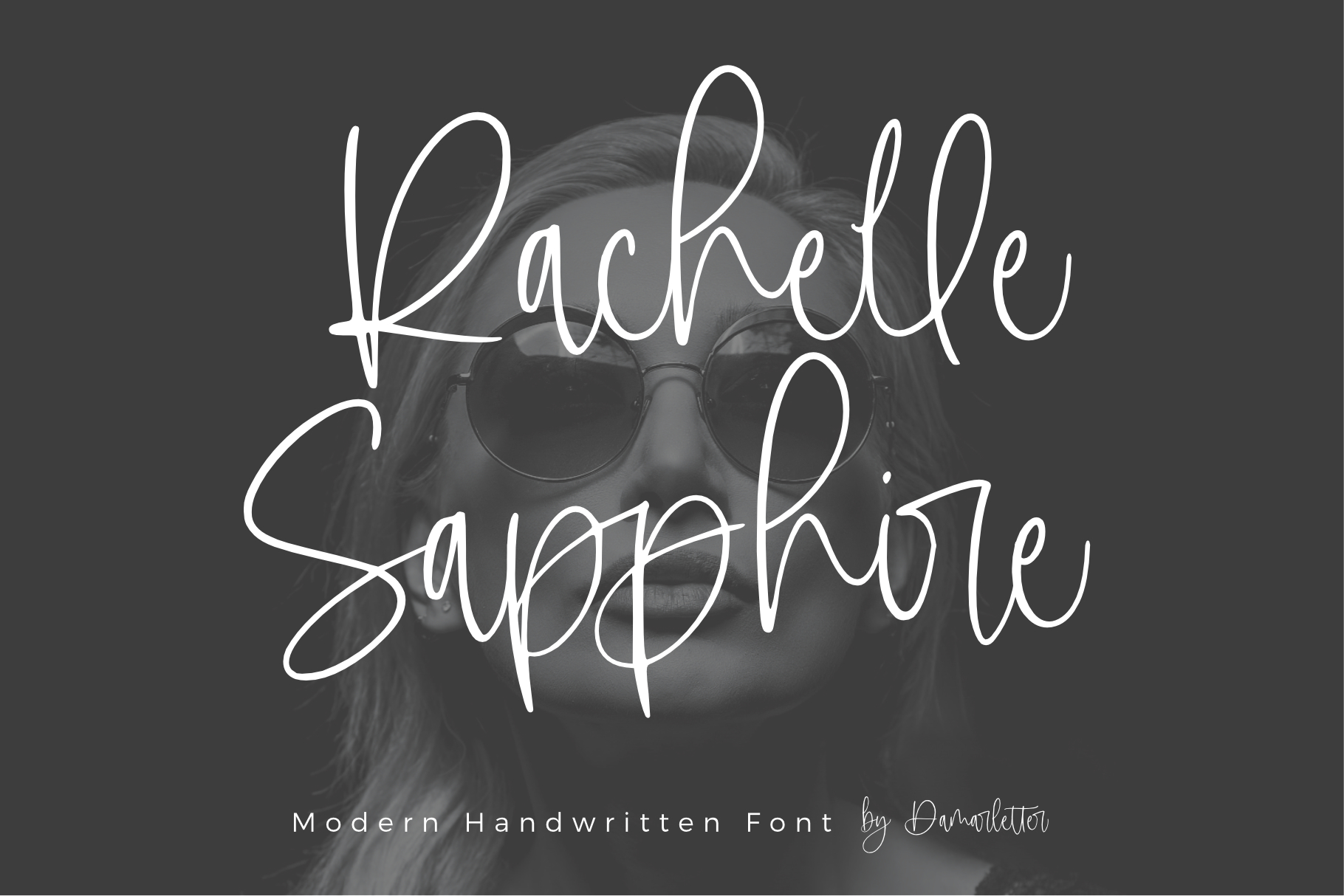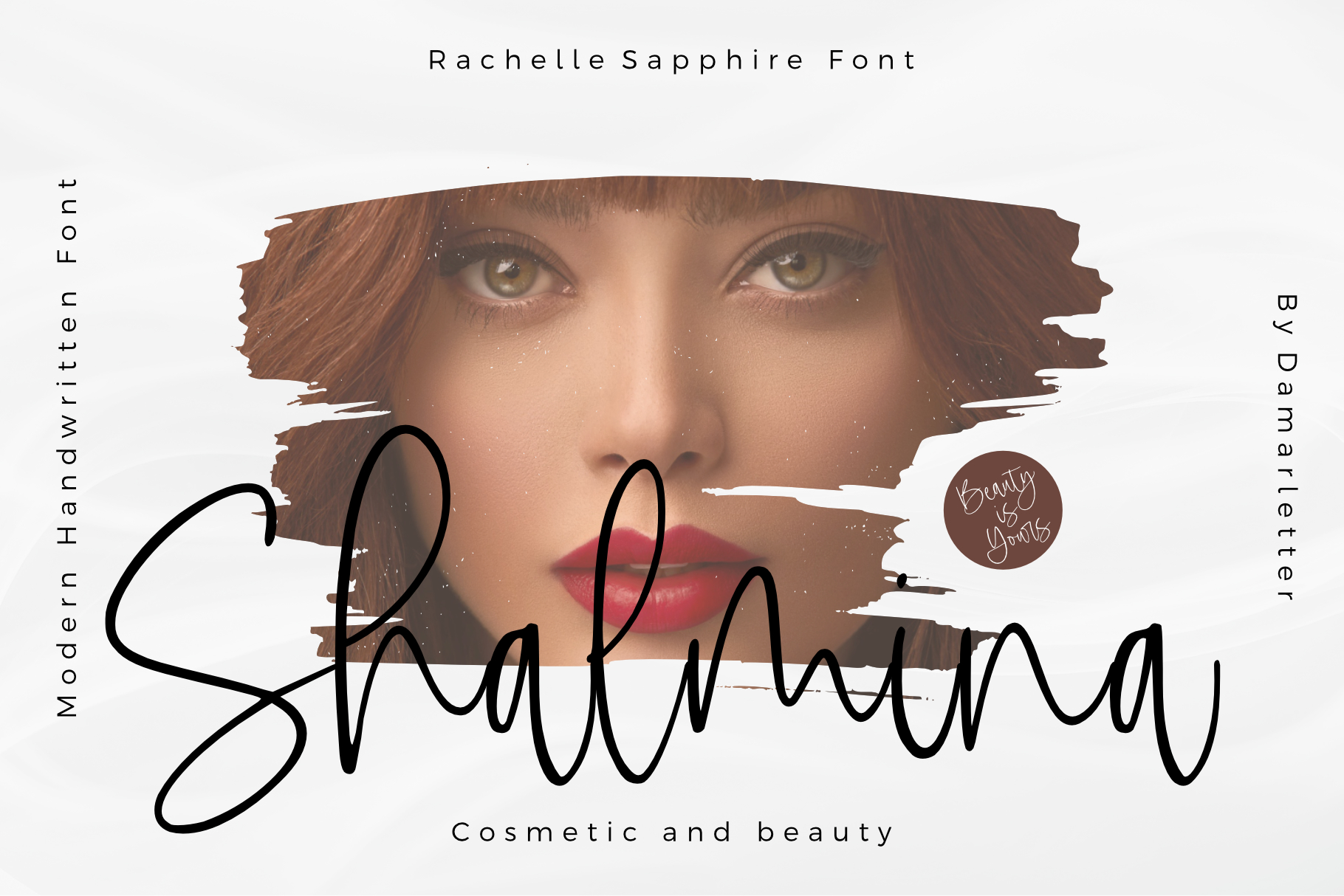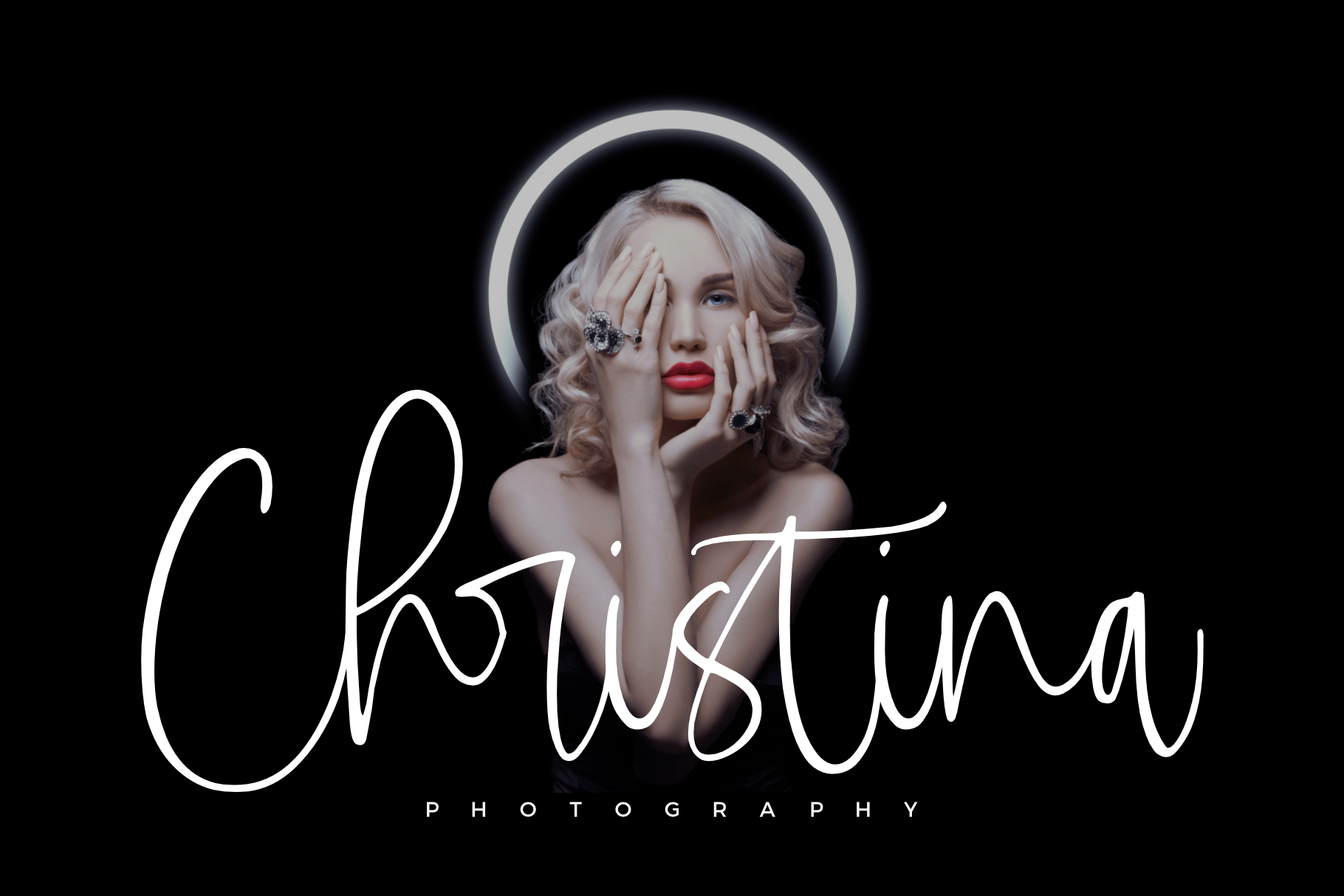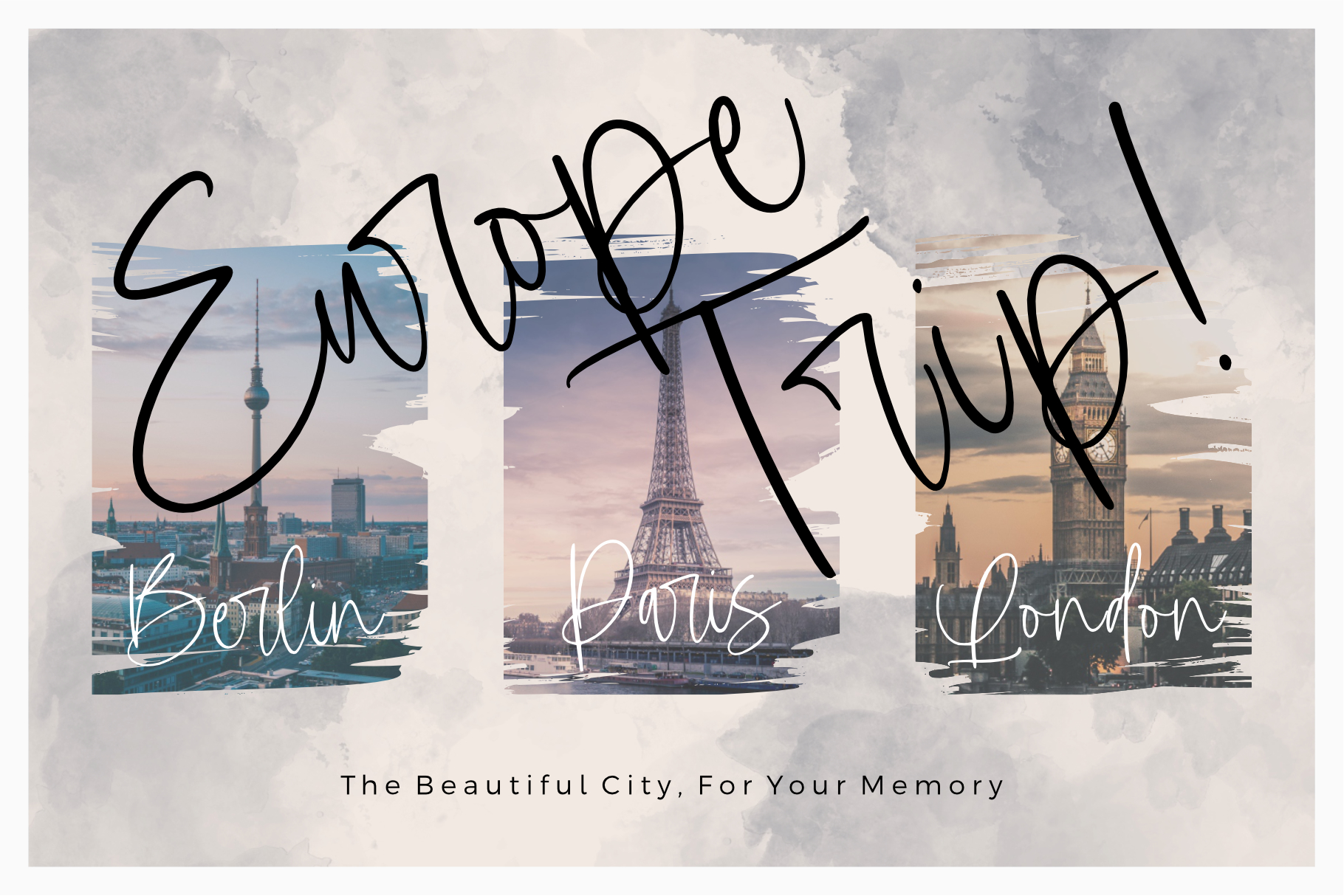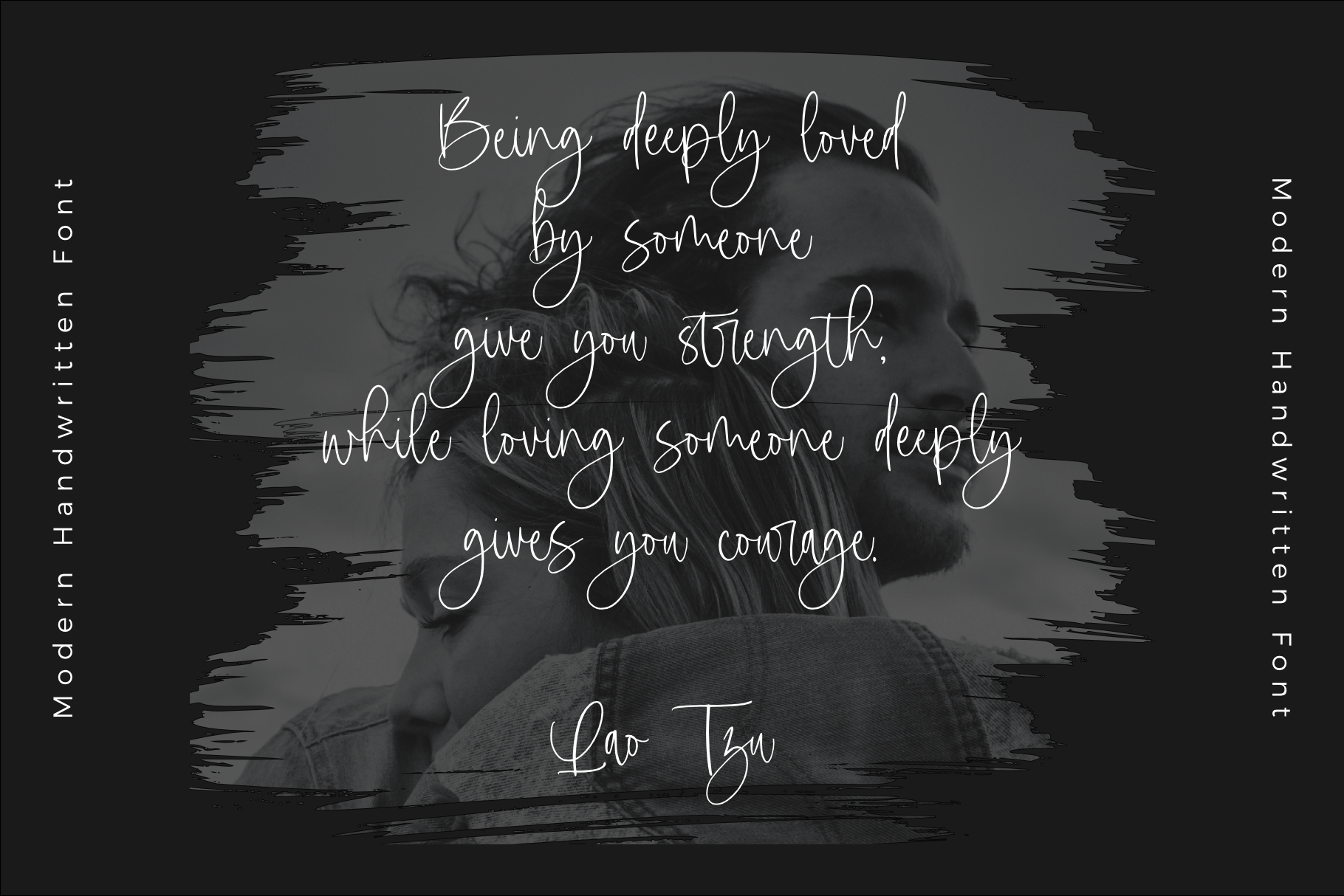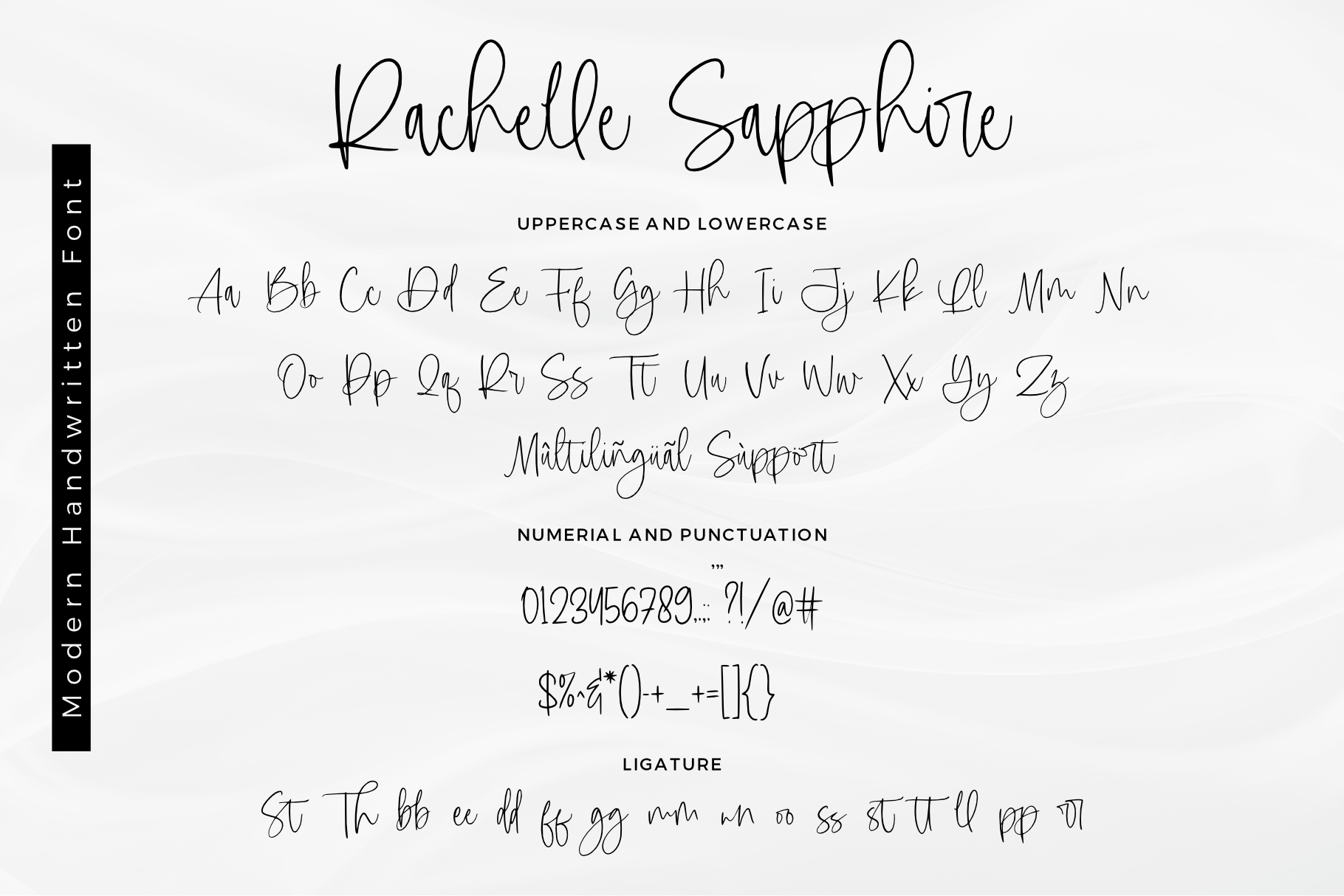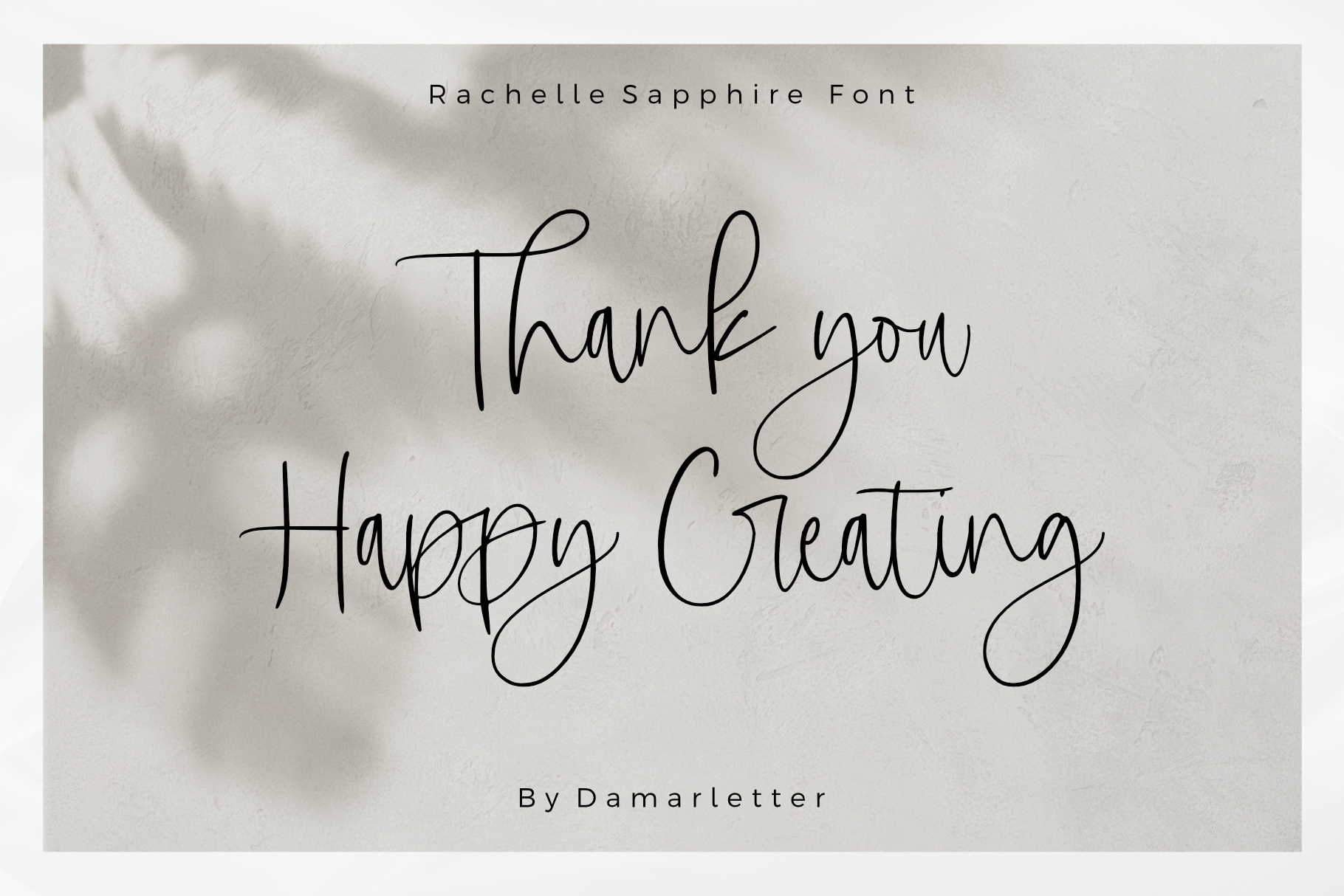
- Rachelle Sapphire – Handwritten Font
Rachelle Sapphire is a chic, refined script font. Its stylish ligatures make this font the perfect match for any project such as logos, wedding designs, social media posts, advertisements, product packaging, product designs, labels, invitations, or anything that needs a handwritten touch.